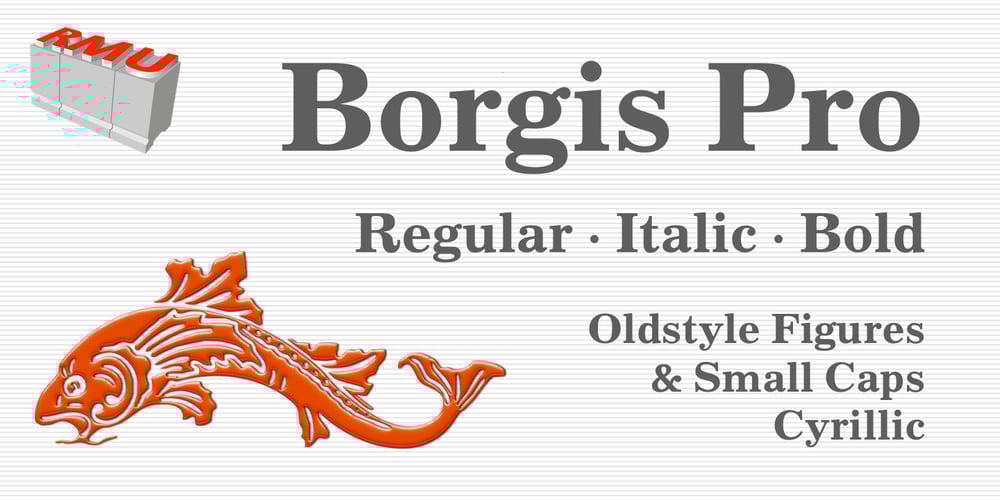
Borgis Pro Font Family was designed by Ralph M. Unger and published by RMU. Borgis Pro contains 3 styles and family package options. Borgis Pro is a robust Clarendon-style font family, intended for use in body texts even on rough papers as well as in web design. All styles include small caps and oldstyle figures. Users who want to type in the Serbian language and take the Italic style should activate the OT feature Stylistic Alternatives.